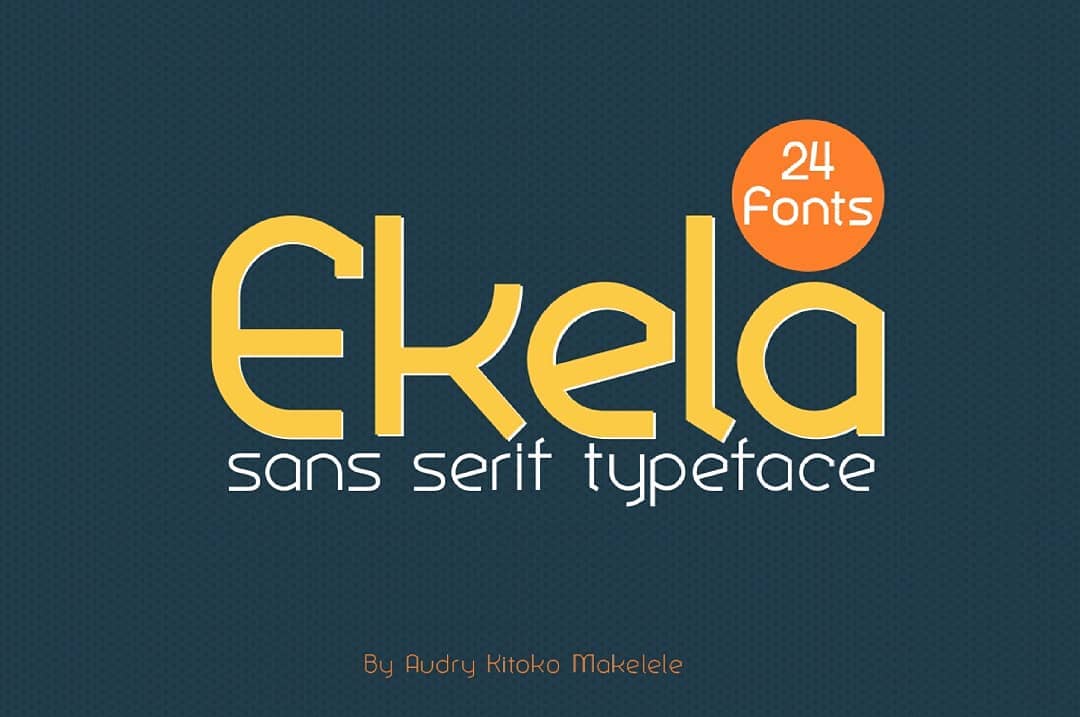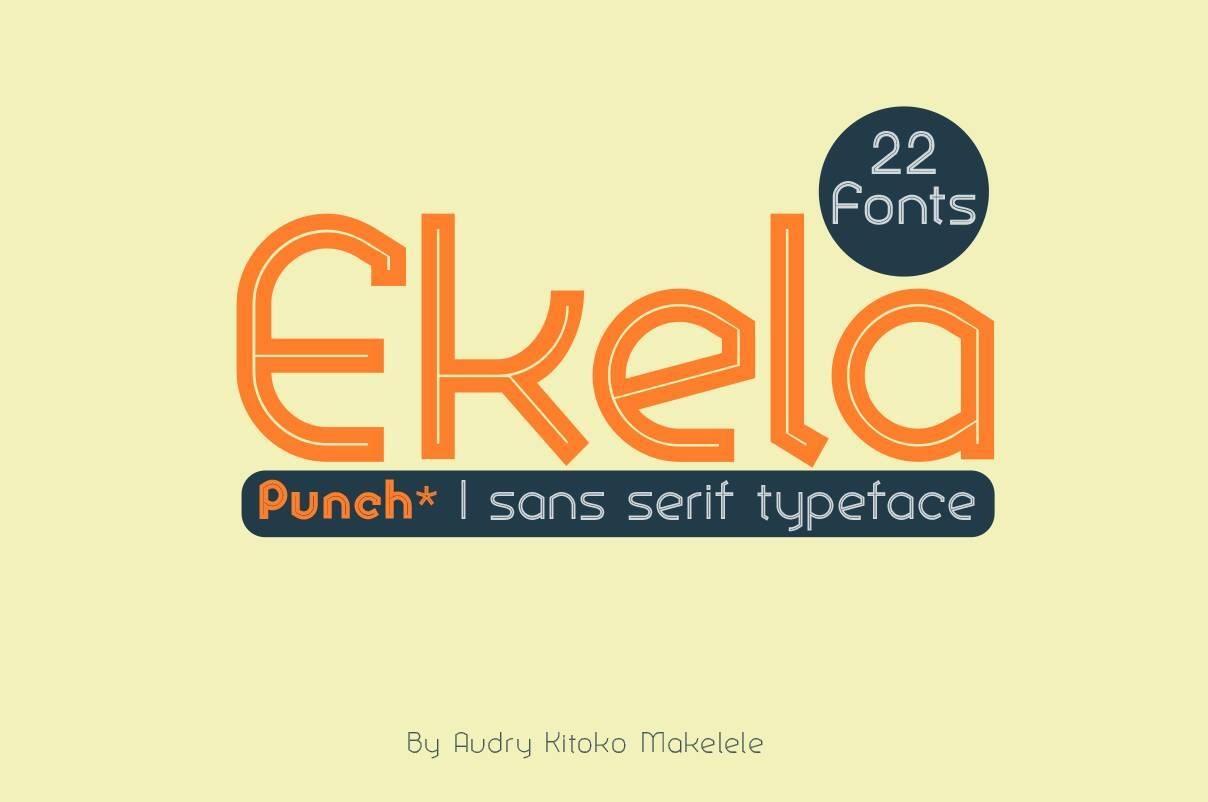
Samples of sans serif typefaces typeface name example 1 example 2 example 3 agency fb designer.
Sans serif fonts jar. We also offer a font free every week. Recent fonts top fonts designers submit a font. While serif fonts are known to be more traditional sans serif fonts bring that much needed modernistic touch to the design.
Fonts sans serif fenton typeface family. 13 px 18 px 20 pxfon 14 px 9 px 32 px 11 px 17 px 25 px 22 px 7 px 19 px 24 px 5 px 6 px. Sans serif fonts have become the most prevalent for display of text on computer screens. Some sans serif font families like arial are meant to work as body copy text that goes on for more than a sentence or two.
They are often used to convey simplicity and modernity or minimalism. Caleigh huber morris fuller benton class. A wonderful typeface that comes with 6 weights. Sans serif fonts also work well where theres very little room for copy.
Basic sans serif serif various fixed width bitmap 21 px 15 px 16 px 8 px 27 px 35 px 12 px 10 px. Sans serif fonts tend to have less stroke width variation than serif fonts. On lower resolution digital displays fine details like serifs may disappear or appear too large. Sans serif fonts as you might already know are the fonts with no projecting lines at the ends.